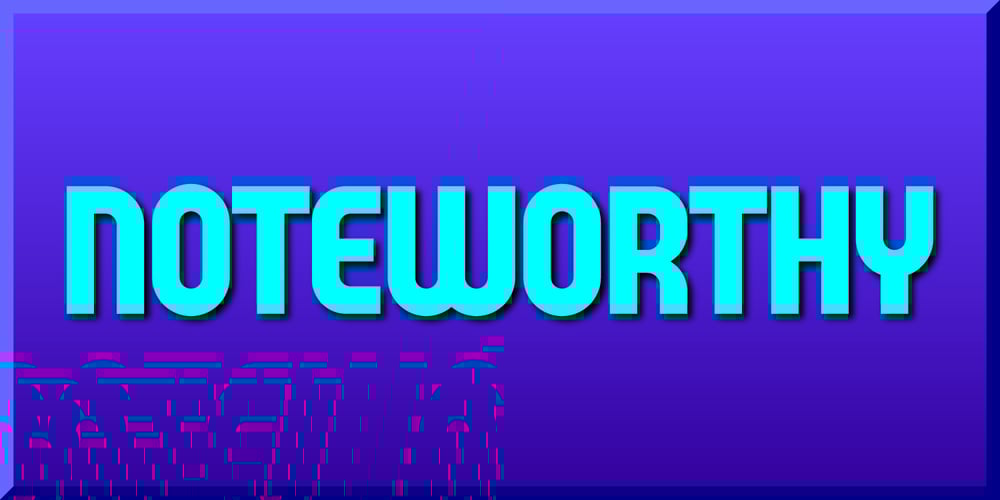
Noteworthy
Noteworthy font
Noteworthy Font Family was designed by Gerald Gallo and published by Gerald Gallo. Noteworthy contains 1 styles and family package options. Noteworthy is an all caps, bold, contemporary, sans serif font. It is ideal for headlines, titles, branding and small blocks of text.